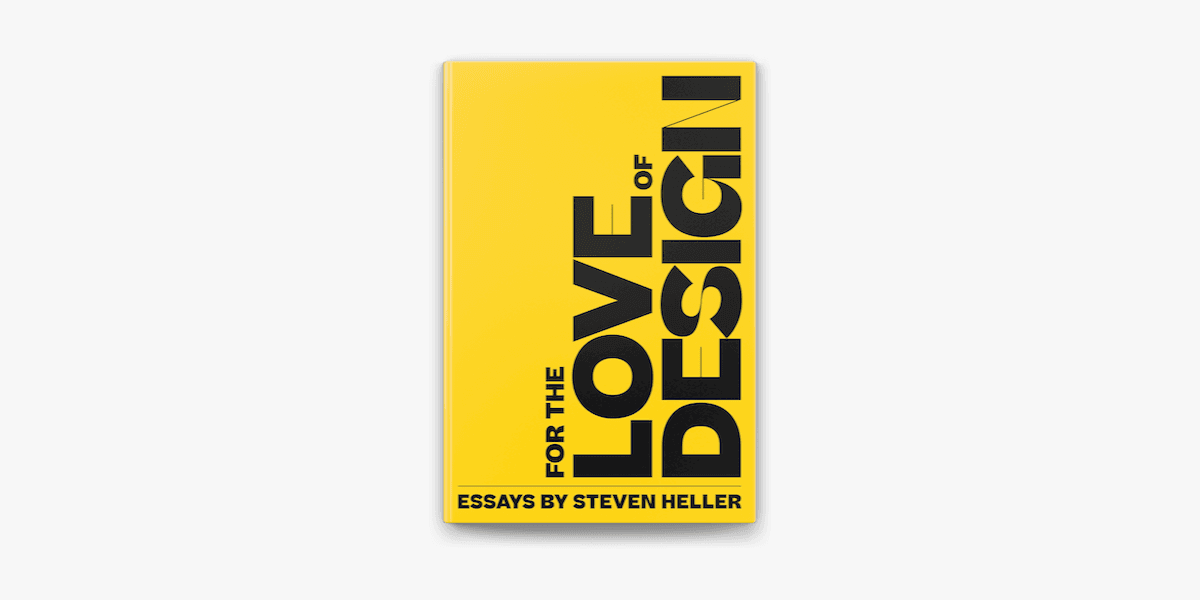
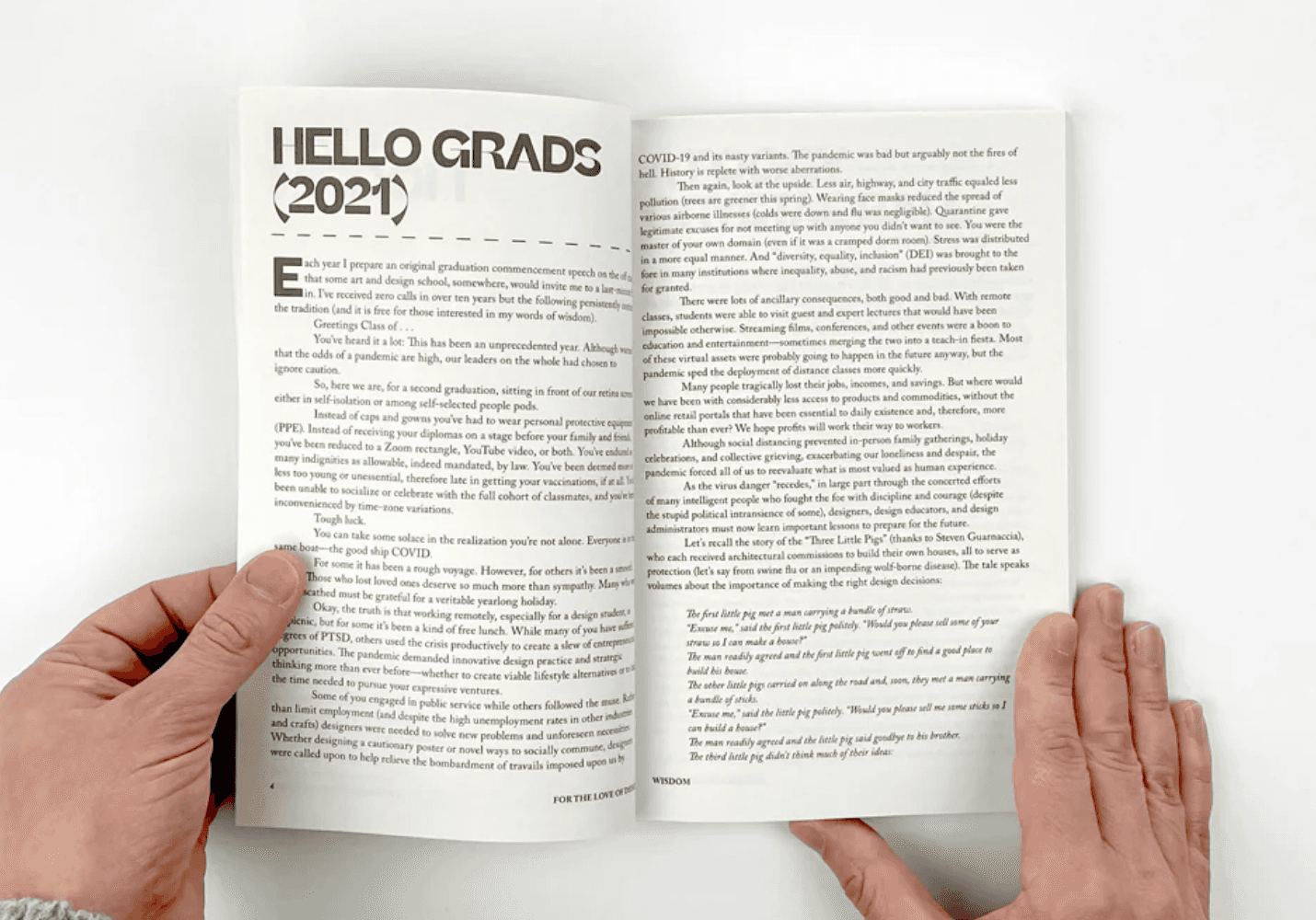
"Being creative is one way to compensate for this brief time on earth."
From another writer, this could come off as sentimental. Coming from Steven Heller, the message is pragmatic and an understated piece of advice from a pioneering designer whose multi-hyphenate career and prolific output are seemingly without peer. For the Love of Design is one of Heller's newest releases, adding to over 200 books he has authored, co-authored, or edited over the past forty years. The book features recent essays that convey his inquisitive nature, critical engagement, and metaphysical outlook on design culture. The book's tone has the added warmth of nostalgia and the trademark sharp-eyed self-assessment of a designer who is taking stock in the autumn of life.
Designed by Ezra Lee, this essay compilation features Beatrice Display and Standard on a yellow background. Simple and bold, there is nothing else on the cover besides the typography. Beatrice Display naturally takes center stage; the words "Love" and "Design" are allocated the most real estate. Lee plays to the book's dimensions by sitting the title on its side, so that the typography has as much room as possible in the allowable space.
Heller is a quintessential New York designer, having come of age creatively in the city during the 1960s. He cut his teeth designing for a number of underground publications before he went on to work as an art director at the New York Times for over thirty years. He is currently the co-chair of MFA Design: Designer as Author at SVA, which is one of several programs he has created and fostered.
A quick glance Heller's work history speaks to an almost inhuman capacity for productivity; the titles he can claim include art director, graphic designer, curator, educator, journalist, and writer. It's gently amusing, then, that the book opens with a batch of un-commissioned commencement speeches, which Heller wrote just in case he gets asked to give them; for someone so tirelessly engaged with design and visual communication, one shouldn't be surprised that he has even realized writing for hypothetical scenarios. As a designer who has had such a rich career to reflect upon, we can forgive Heller's ego here and take the many lessons he's ascertained over the years, communicated effortlessly, and with a passion we shouldn't take for granted.